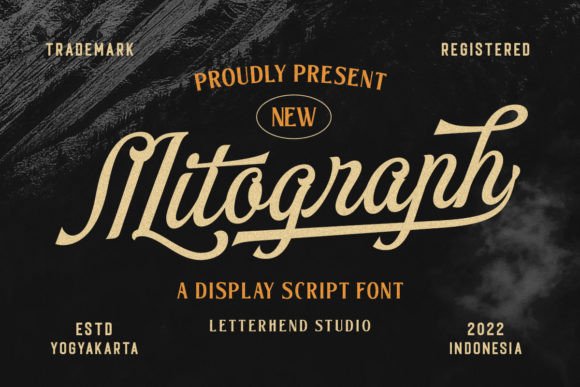
Introducing Mitograph, the perfect display script font that combines the best of both classic and modern design. Created by the renowned letterhend, Mitograph is a versatile and stylish typeface that can elevate any project to new heights.
If you're looking for the best fonts for food packaging, Mitograph is the ideal choice. Its stunning curves and elegant lines make it an excellent option for any food-related project, adding a touch of sophistication and class to your designs.
But Mitograph isn't just for food packaging. Its versatility makes it a great option for any project, whether you're working on a logo, branding, advertising, or anything in between. This font will help your design stand out from the crowd, ensuring that your message is delivered loud and clear.
Mitograph is more than just a font; it's a tool that can help you unleash your creativity and bring your ideas to life. With its unique and captivating style, this font is sure to leave a lasting impression on anyone who sees it.